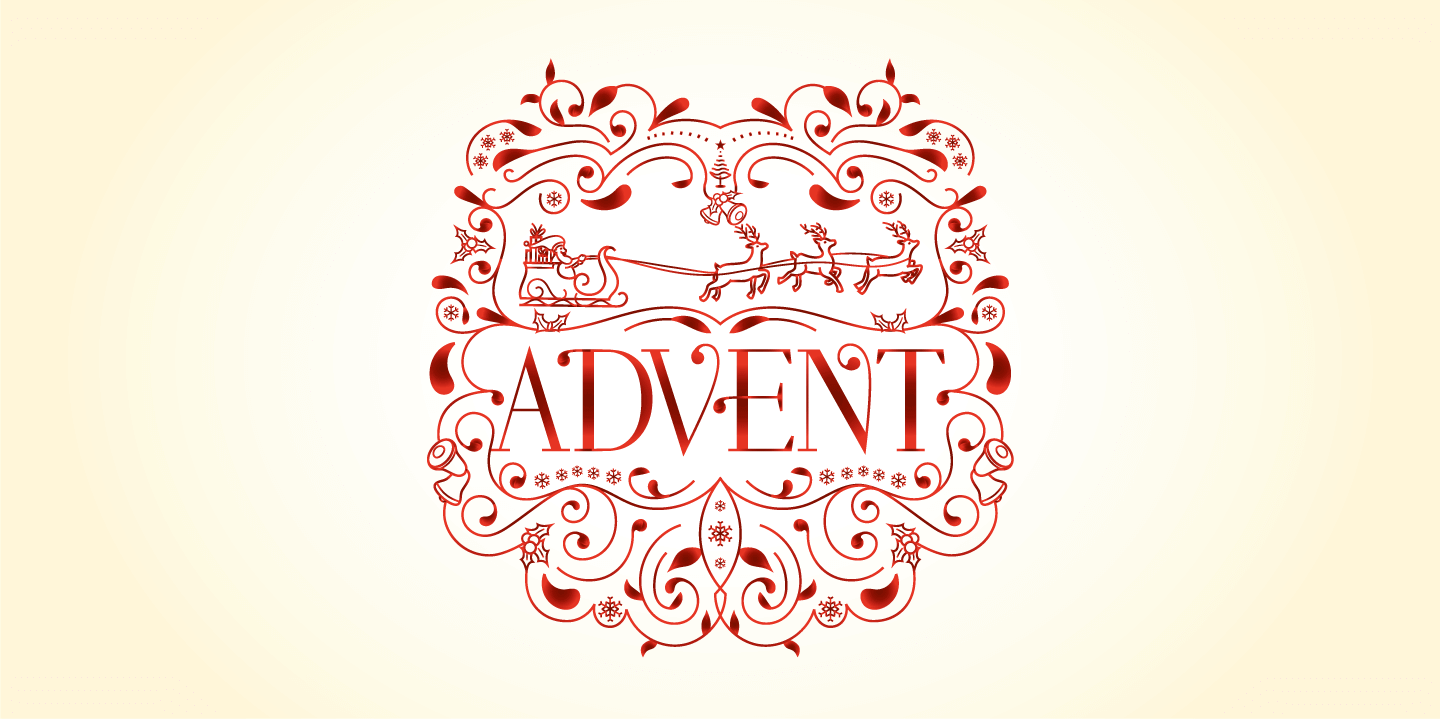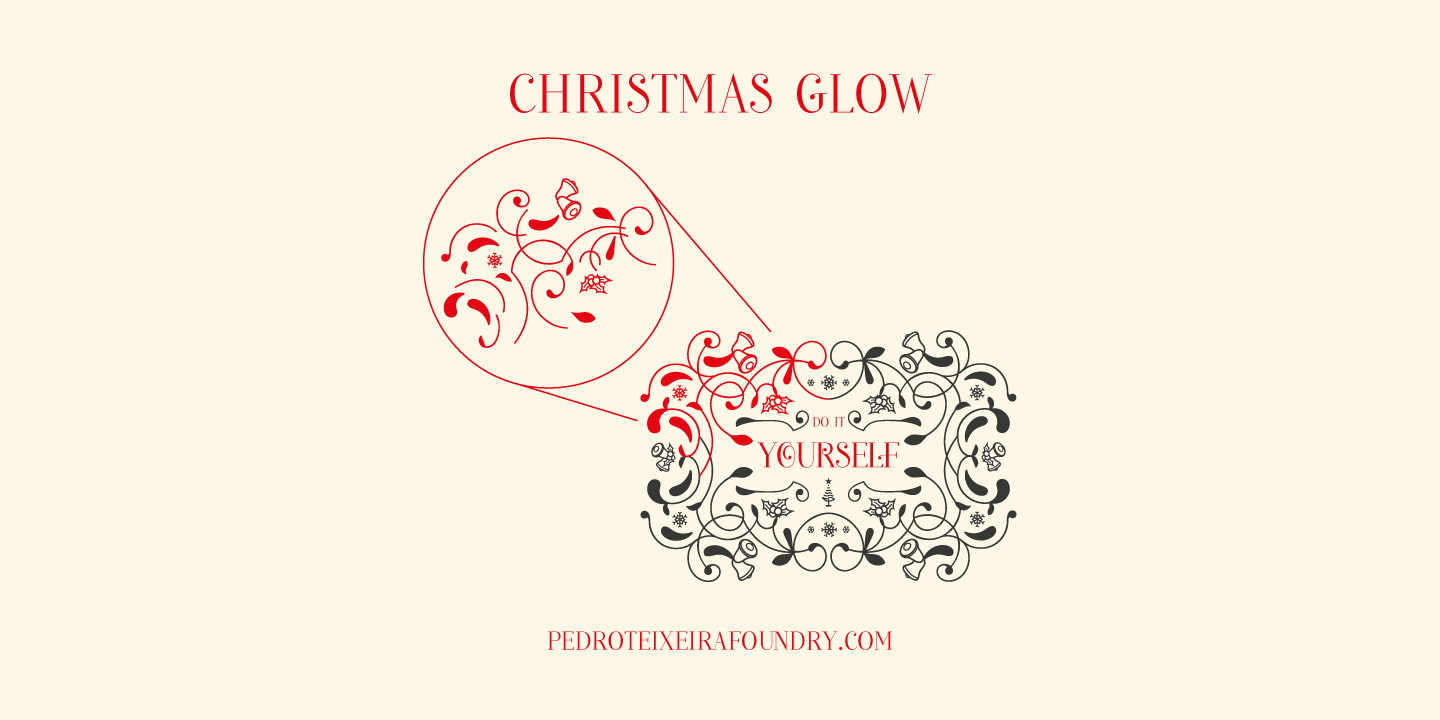
About Christmas Glow
When I started designing this font, I had the purpose of giving a retro warming christmas feeling. So I added ornaments to add more value to your designs. Ornament glyphs can be arranged in numerous different designs.